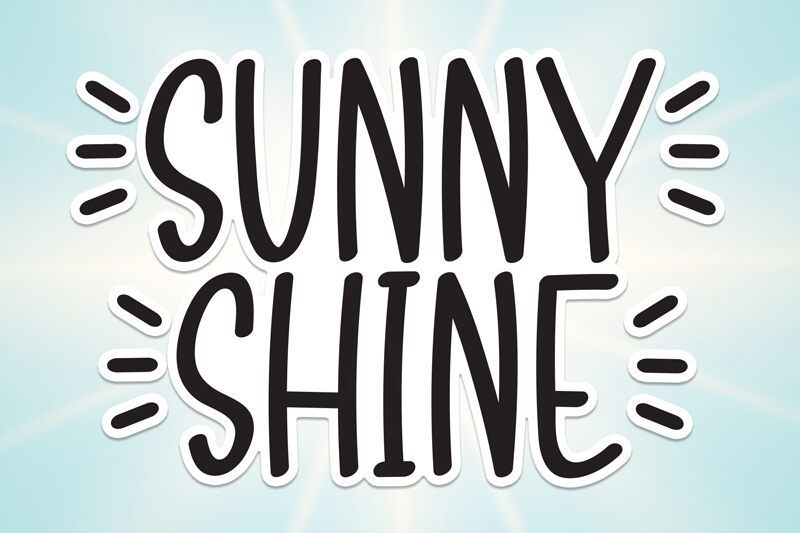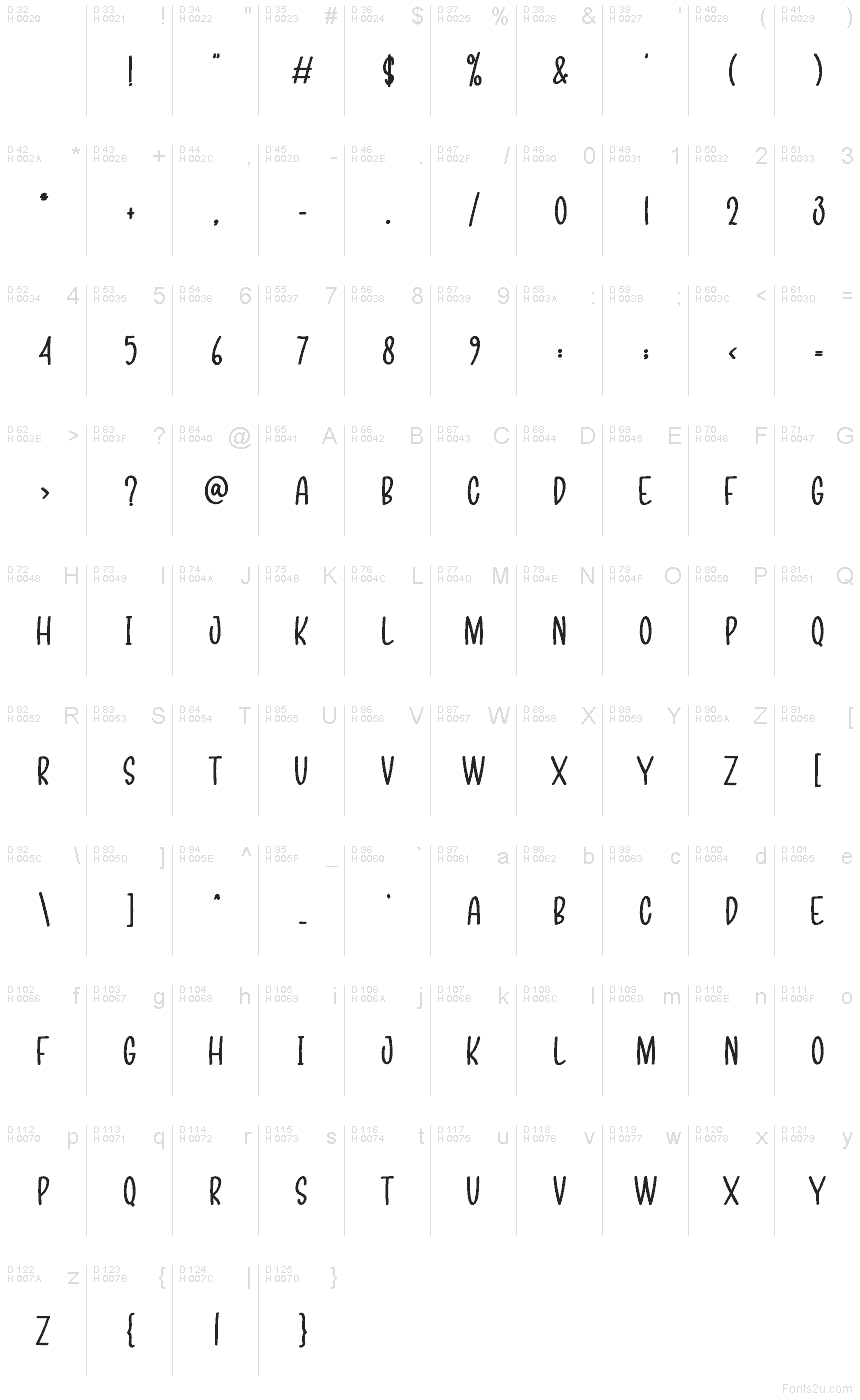
Sunny Shine
Sunny Shine font by Andi Moz is a free handwritten font with tall, slightly wobbly letters that feel like they’ve been drawn with a thick marker on sun-bleached paper. The narrow shapes and even stroke weight give it a friendly, upbeat rhythm, so your words look casual and hand-made without turning messy or hard to read.
Using Sunny Shine, you can bring a breezy, playful voice to kids’ posters, greeting cards, stickers, product packaging, social media graphics, and cheerful branding. This free font shines at larger sizes where its inky, textured edges can be appreciated; pair it with a clean, simple sans serif for body text to keep layouts balanced and readable.